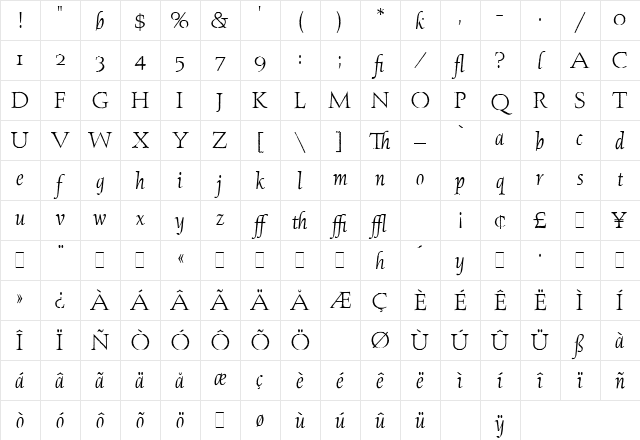
Aquinas LET Plain
Design Context for Aquinas LET
Aquinas LET is a composed and adaptable typeface that performs quietly and consistently across a wide range of design contexts.